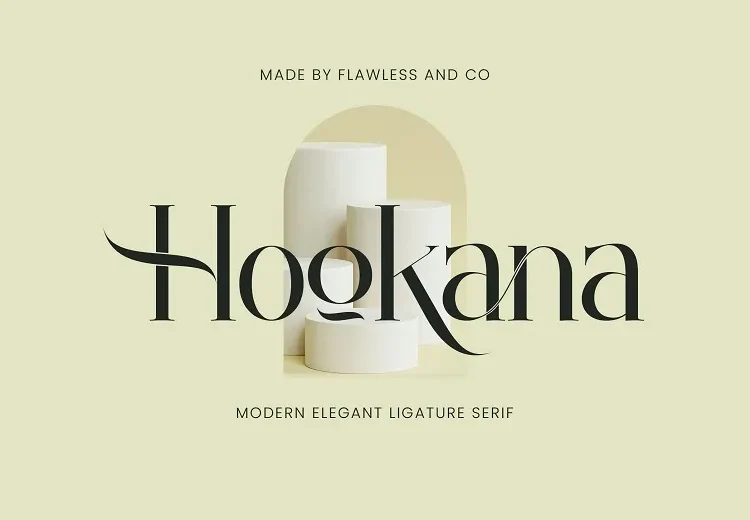
Hookana Font
Introducing Hookana, a contemporary serif font designed with a fresh, bohemian flair. Featuring a range of alternate characters and ligatures, this versatile font offers multilingual support, making it perfect for a variety of creative projects. Whether you’re crafting a brand, designing a logo, or working on magazine layouts, Hookana adds a stylish, modern touch to your work.
Ideal for branding, business materials, logos, and more, Hookana’s unique design ensures your projects stand out with a distinctive, elegant feel.